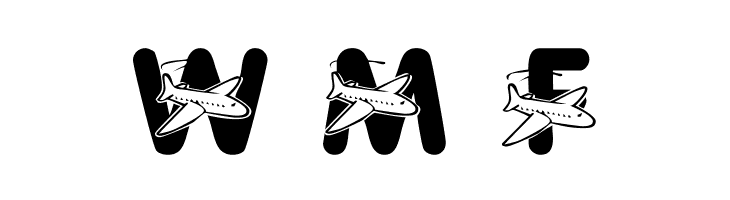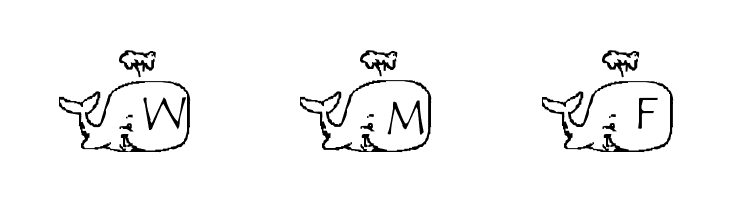
• LMS Turkey Day
A festive font with letters inside turkey silhouettes, perfect for holiday themes.
• LMS Tweety Font
A playful, cartoon-themed decorative font with integrated character designs.
• LMS Ty Babies
A playful font with baby animal illustrations integrated into each letter.
• LMS Ty Buddies
A playful font with bold letters and charming animal illustrations.
• LMS TyBears
A whimsical font with teddy bear illustrations integrated into each letter.
• LMS Under An Acacia Tree
A bold, decorative font with acacia tree silhouettes atop each character.
• LMS USU's Big Blue
A bold, geometric font with sharp edges and uniform strokes, ideal for impactful design.
• LMS Utah Welcomes the Olympics
A bold, decorative font with winter sports motifs integrated into each character.
• LMS Velma
A whimsical, illustrated font with bold, rounded characters featuring integrated character designs.
• LMS Warrior Mascot
A decorative font with warrior-themed illustrations integrated into each character.
• LMS We Love To Fly
A bold, playful font with airplane motifs intersecting each letter, perfect for travel themes.
• LMS We're The Chipmunks
A playful font with cartoon characters integrated into bold, rounded letters.
• LMS Whale Of A Font
A playful font with characters inside cartoon whales, perfect for fun projects.
• LMS Winterguard Girl
A whimsical, cartoonish font with characters holding flags, adding a playful touch.